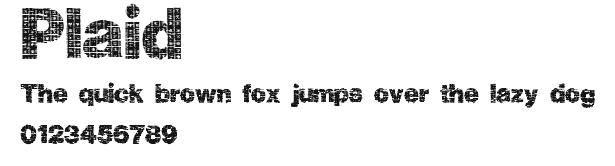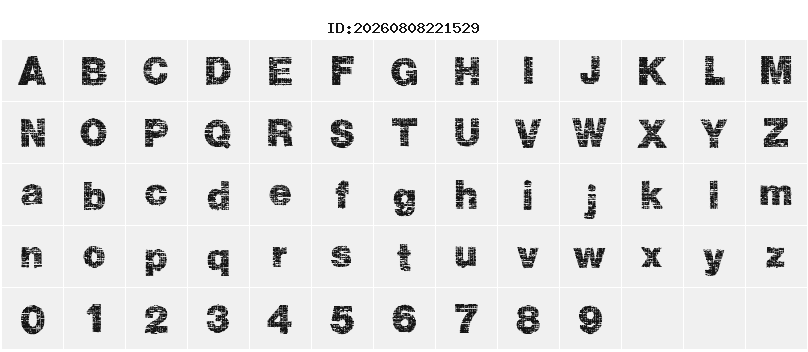
Plaid.ttf is a modern, elegant sans-serif font designed for ultimate readability and visual harmony. Perfect for branding, headlines, web design, and print materials.